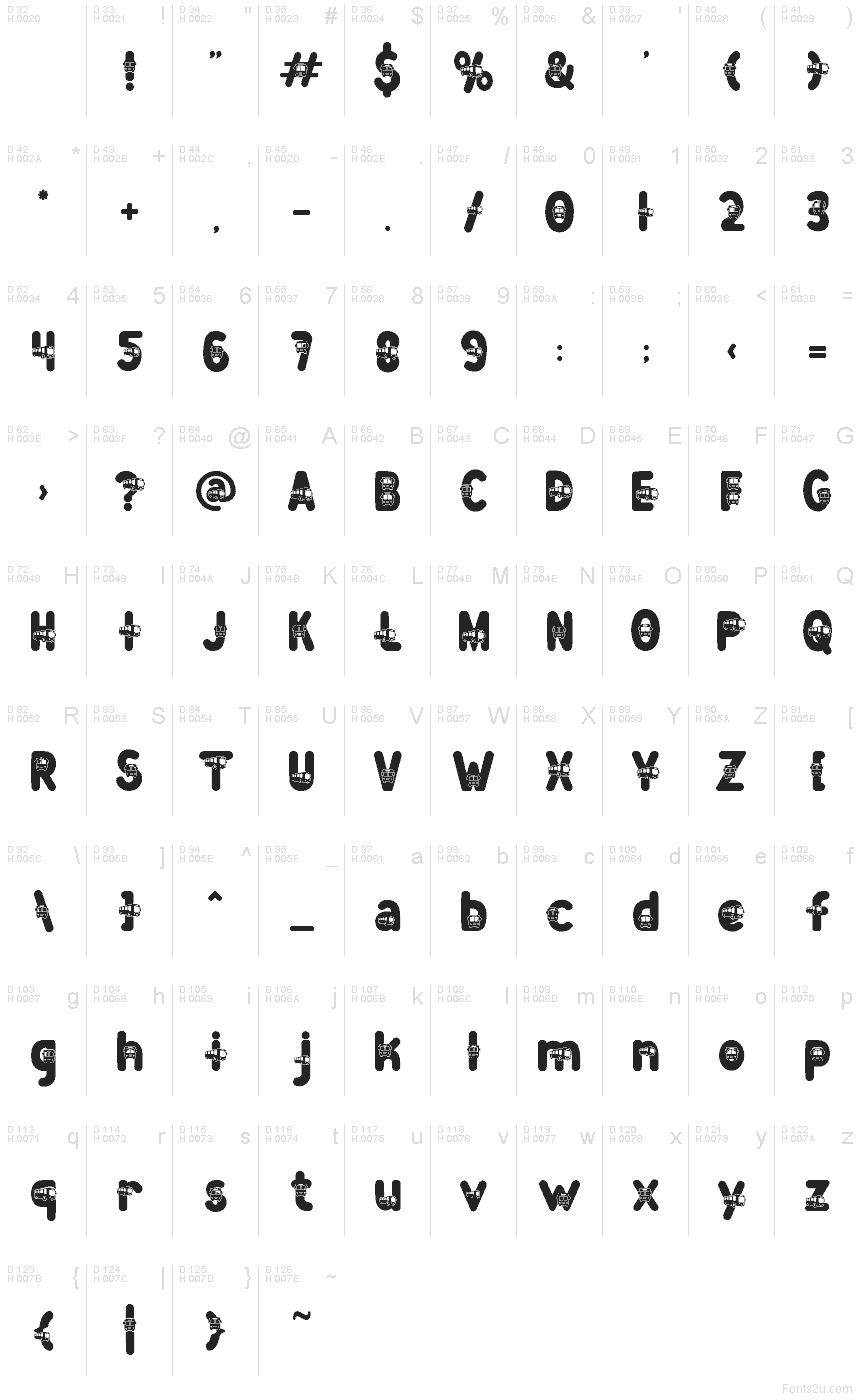
Zany Route Train
Zany Route Train font by PutraCetol Studio is a decorative display font with bold weight. Whimsical and transport-themed, it mixes graphic elements for contemporary application and showcases visual playfulness in branding and editorial designs.
Free to download, this strange yet dashing font will look suitable on product packaging, drink labels, restaurant menus, poster titles, apparel designs, video games’ interfaces (buttons text or descriptions), web landing pages’ graphics etc.